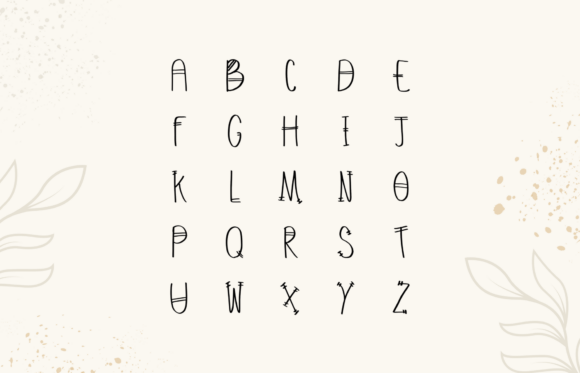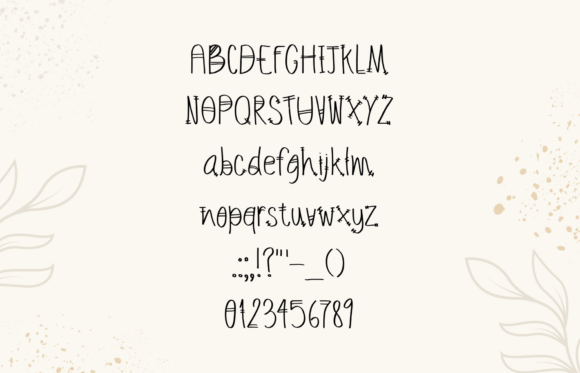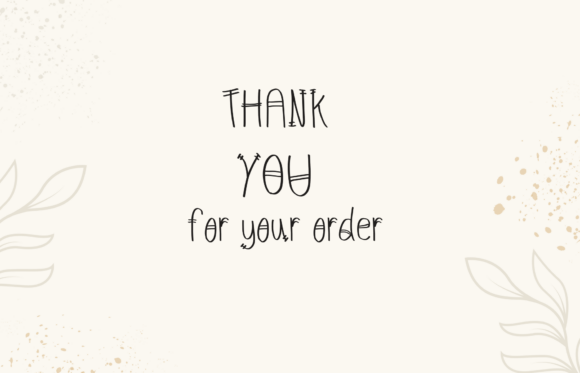
There’s something special about receiving a handwritten note in the mail. The imperfections and quirks of a handwritten message can make it feel more personal and authentic, like a warm hug in letter form. That’s exactly what the Bright Smile Font aims to capture – the effortless charm of a handwritten note.
This delicate and lighthearted font is designed to bring a sense of spontaneity and joy to your designs. With its thin, airy strokes and whimsical decorative elements, the Bright Smile Font is perfect for lifestyle blogs, organic food brands, and delicate wedding stationery. For designers, it offers a valuable alternative to more rigid, structured fonts, allowing for a more human and approachable feel.
Bright Smile Font Key Features
- Character Count: This font family consists of 350 characters, including uppercase and lowercase letters, numbers, punctuation marks, and special characters.
- Unique Characteristics: This font features a unique blend of modern and vintage elements, with a friendly and approachable tone, making it perfect for use in advertising, packaging, and editorial design.
- Font Weight and Style: This font family includes regular, bold, italic, and bold italic styles, offering flexibility and versatility for various design applications.
Bright Smile Font Review
I was excited to dive into the Bright Smile Font, and overall, I think it’s a great addition to any designer’s toolkit. ✨ Here are some things that really stood out to me:
- Unique Character Set: The Bright Smile Font has a wide range of characters that are perfect for creating fun and playful designs.
- Customization Options: The font is highly customizable, allowing you to adjust the size, color, and spacing to fit your specific design needs.
That being said, there are a few limitations to keep in mind: ⚠️
- Limited Font Weights: While the font is highly customizable, there are only a few pre-set font weights available, which may limit your design options.
- Not Ideal for Formal Designs: The Bright Smile Font is best suited for fun and playful designs – it may not be the best choice for formal or professional projects.
Overall, I think the Bright Smile Font is a great addition to any designer’s toolkit. While it has its limitations, the unique character set and customization options make it a versatile and fun font to work with.
Use Bright Smile Font for titles, headings, and short paragraphs to create a visually appealing design.
Experiment with different font sizes and colors to create contrast and emphasis.
Combine Bright Smile Font with other fonts to create a unique and interesting design.
Use Bright Smile Font for:
Food and beverage branding
Health and wellness marketing
Children’s education and entertainment
Alternative Fonts to Bright Smile Font
Great Vibes Font is a modern, cursive font that is perfect for creating a friendly and approachable atmosphere. It’s ideal for use in branding, advertising, and packaging designs where a playful and cheerful tone is desired.
Compared to Bright Smile Font, Great Vibes Font has a more fluid and dynamic feel, making it suitable for designs that require a sense of movement and energy. However, it lacks the bright and bubbly quality that Bright Smile Font is known for.